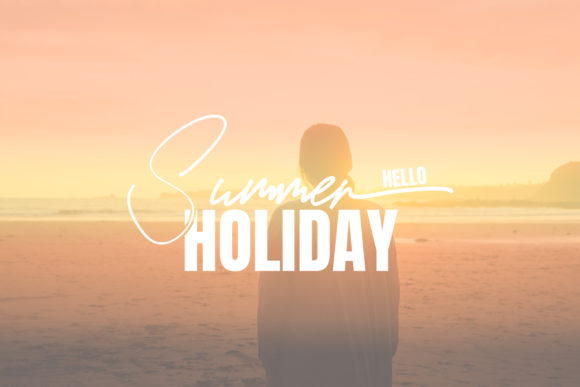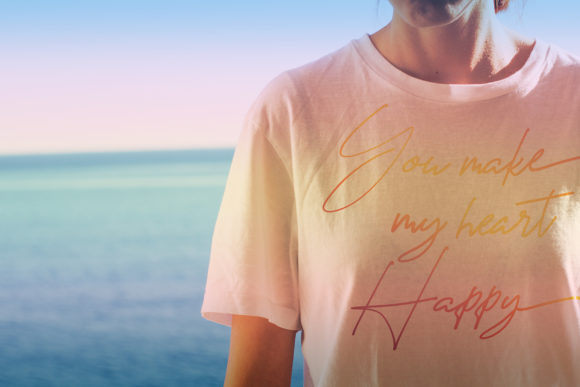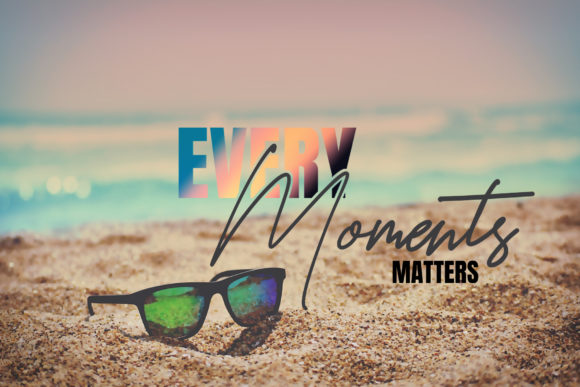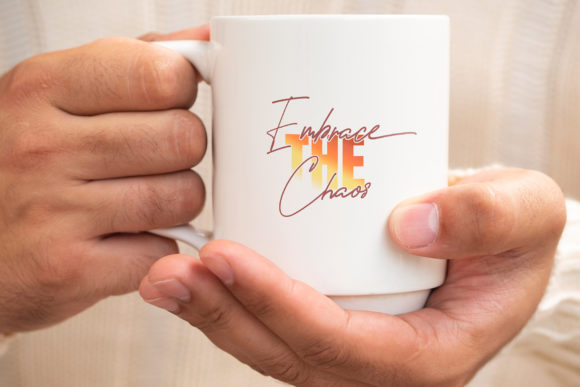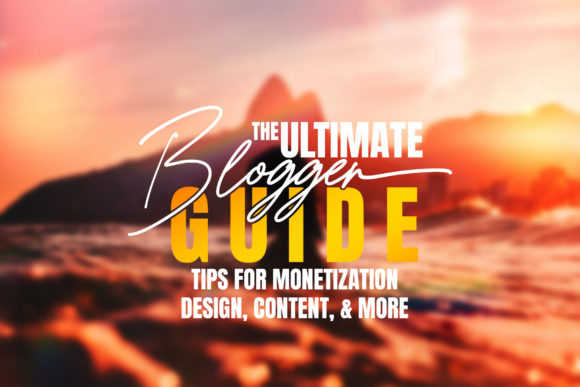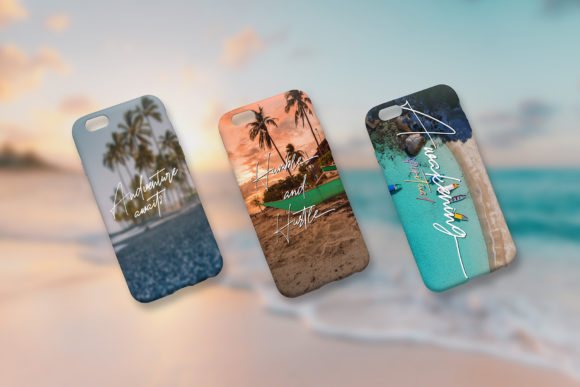
Introduction to Long Beach Font
Long Beach is a stylish signature font.
It features an incredibly classic style, while still keeping a friendly feel It will elevate a wide range of design projects to the highest level, be it branding, headings, wedding designs, invitations, signatures, logos, labels, and much more.